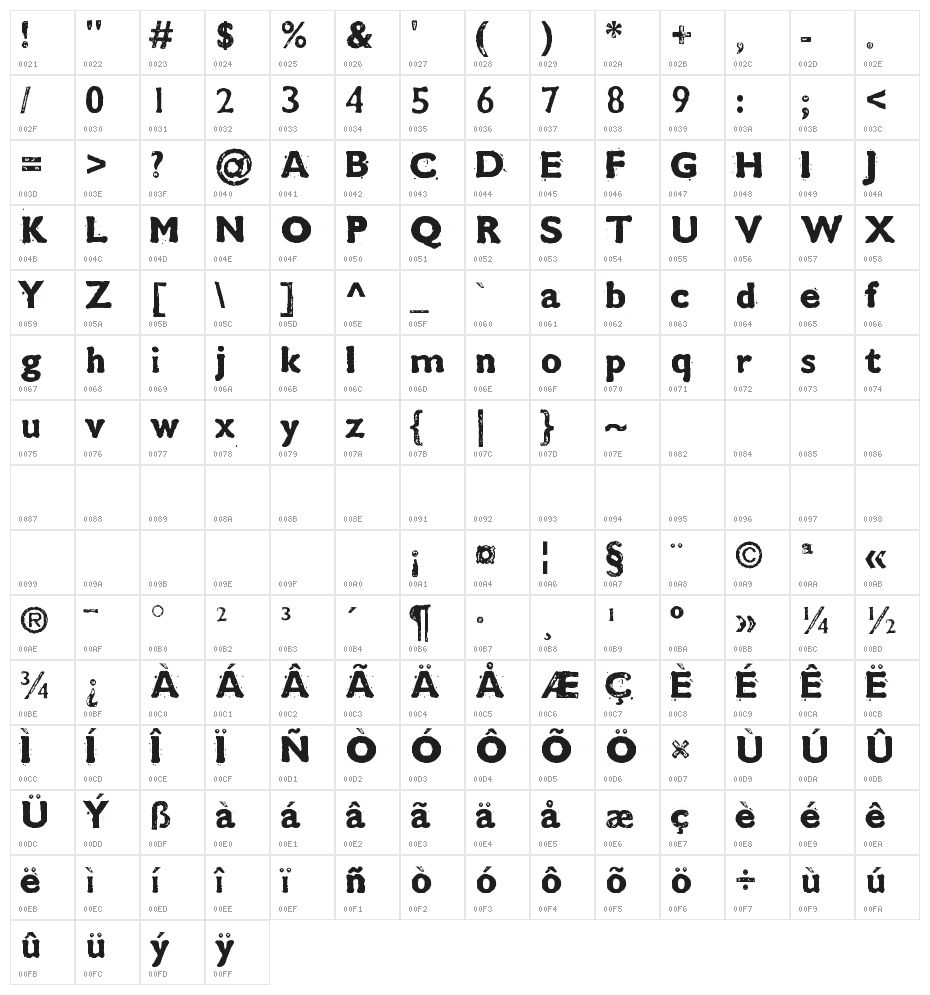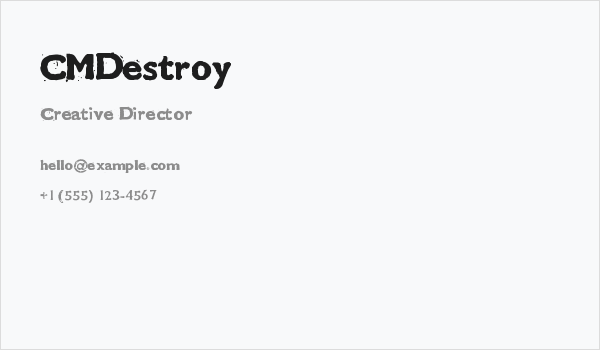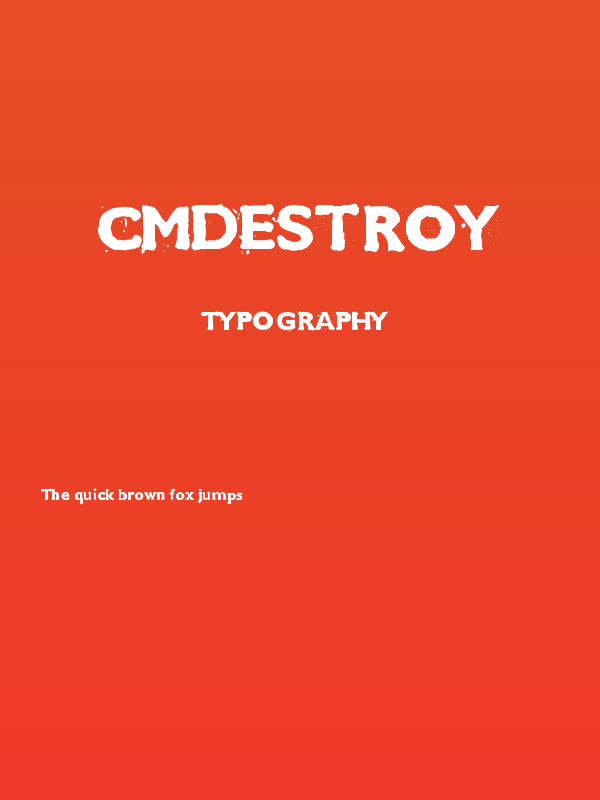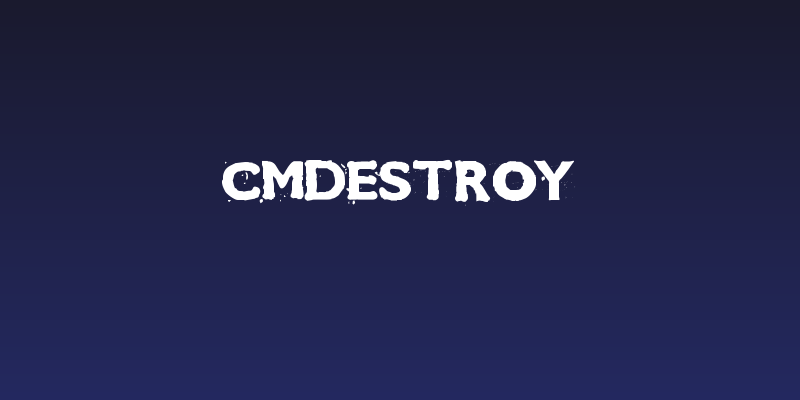
CMDestroy Font
CMDestroy Description
This font features a bold and distressed style, with a rough, textured appearance that gives it a vintage and rugged feel. The uppercase and lowercase letters are consistent in their boldness, with slightly uneven edges that add to the distressed look. The numerals and special characters follow the same design, maintaining the overall aesthetic. This font is ideal for projects that require a strong, impactful presence with a touch of nostalgia or a handcrafted vibe.
| Proposed Projects | Perfect for posters, album covers, branding for rustic or vintage-themed products, and any design needing a bold, textured look. |